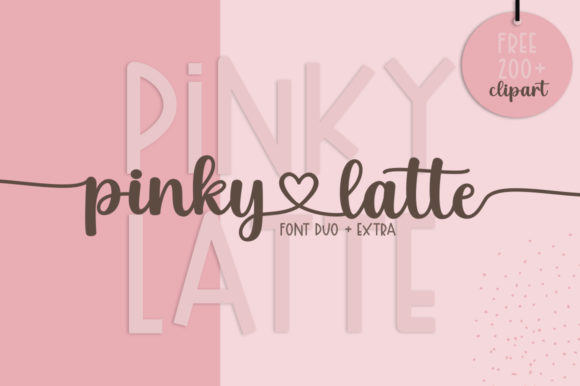
Are you looking for the best fonts for calligraphy? Look no further than Pinky Latte Font, created by Fillo Graphic. This elegant and dainty duo font features a unique blend of handwritten and sans serif styles, making it perfect for a variety of design projects.
The sweet and delicate swashes of Pinky Latte add a touch of sophistication to any text, making it perfect for use in letterheads, titles, and stationery. Its original look will appeal to a wide range of crafty ideas and provide a unique and eye-catching touch to any project.
But Pinky Latte isn't just about aesthetics. It also features a wide range of character sets, including multilingual support, making it an excellent choice for designers looking to create international projects. Plus, its versatility means it can be used for both personal and commercial projects.